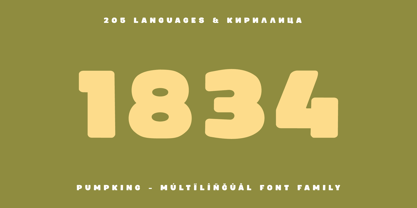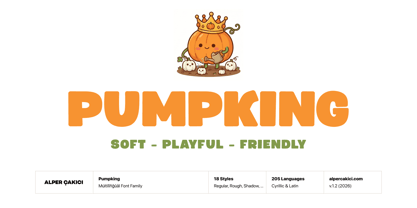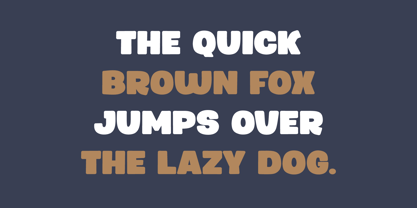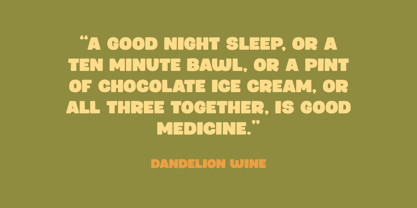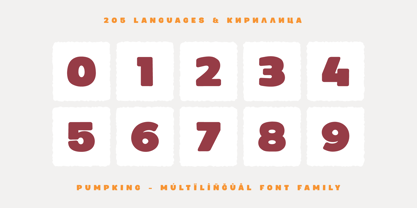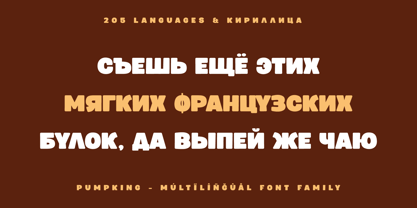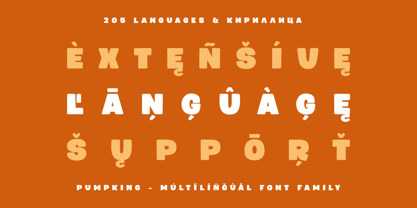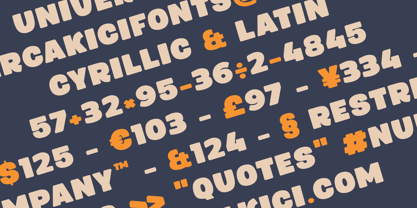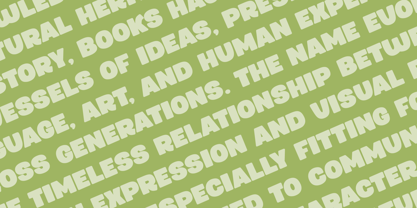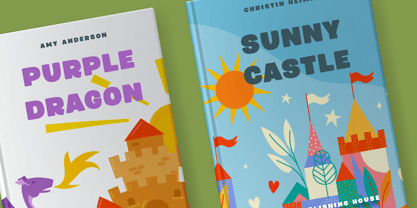
Pumpking
by AlperCakici
The Pumpking Font Family was designed by Alper Çakıcı and published by AlperCakici. Pumpking contains 18 styles and family package options. More about this family
Pumpking is a playful chunky sans serif typeface designed to infuse warmth, personality, and bold visual impact into any project. Featuring soft curves, rounded proportions, and friendly letterforms, Pumpking embodies the joyful spirit of childhood creativity while ensuring excellent readability across various display applications. The family comprises 18 meticulously crafted styles, ranging from clean and polished forms to distressed, textured, and decorative variations. Whether you opt for the smooth Regular, the handcrafted Rough, the nostalgic Old, the weathered Rusty, the expressive Worn, the bold Edgy, or the eye-catching Outline and Shadow styles, Pumpking offers extensive creative flexibility for designers in search of a fun and memorable typographic voice. Its chunky construction creates a strong visual presence in headlines, logos, packaging, posters, children's books, educational materials, social media graphics, greeting cards, toy branding, seasonal promotions, and playful marketing campaigns. The softer shapes make it approachable and friendly, while the heavier weight ensures excellent visibility even from a distance. Supporting both Latin and Cyrillic alphabets with 567 glyphs, Pumpking provides broad multilingual coverage, making it ideal for international design projects. The carefully balanced spacing and consistent character construction help maintain readability while preserving its distinctive handcrafted charm. Whether you're crafting cheerful branding, family-oriented products, festive designs, playful packaging, comic-inspired artwork, or attention-grabbing display typography, Pumpking delivers a bold, friendly, and unmistakably fun typographic experience.